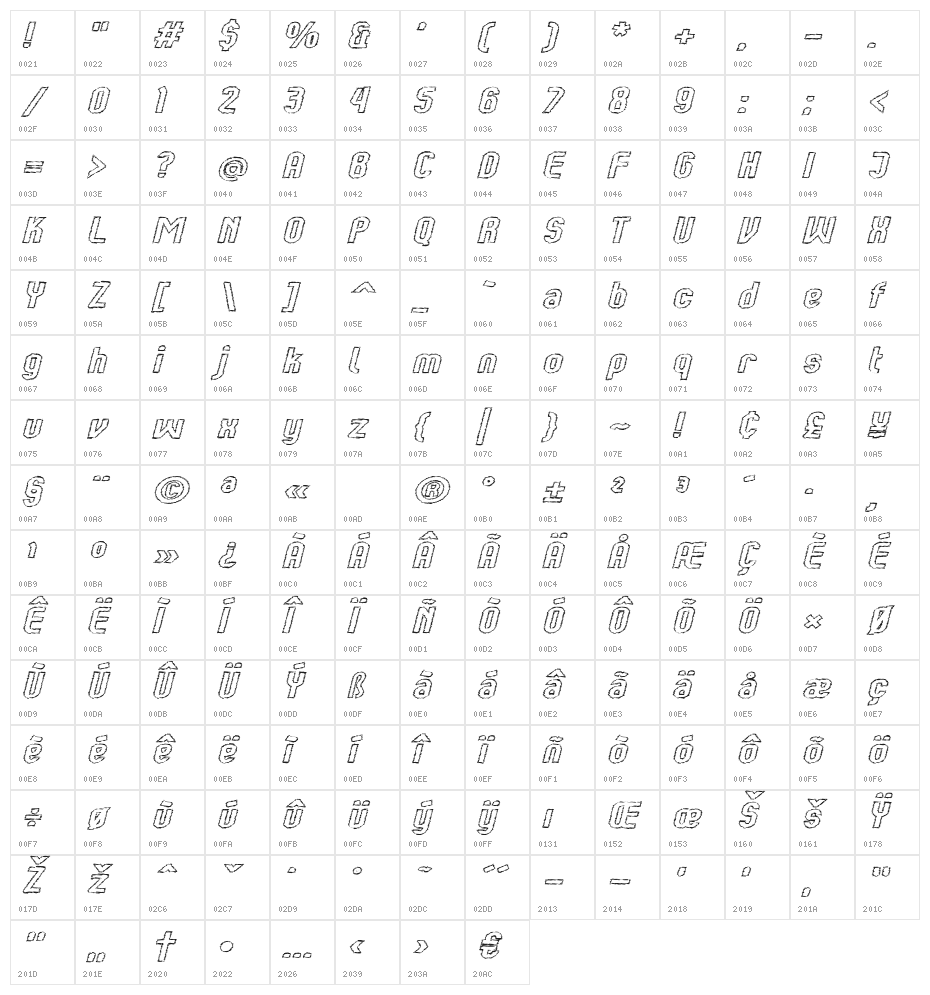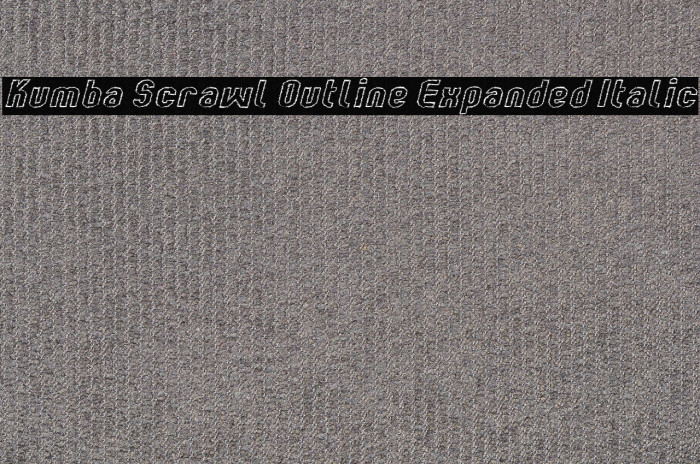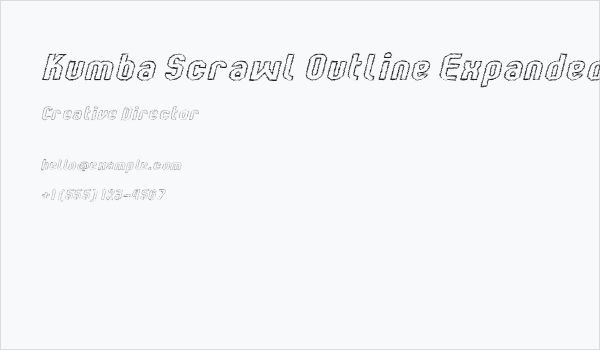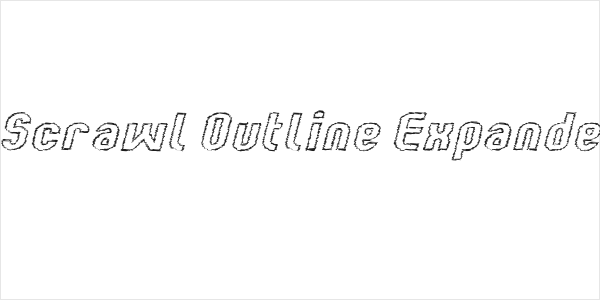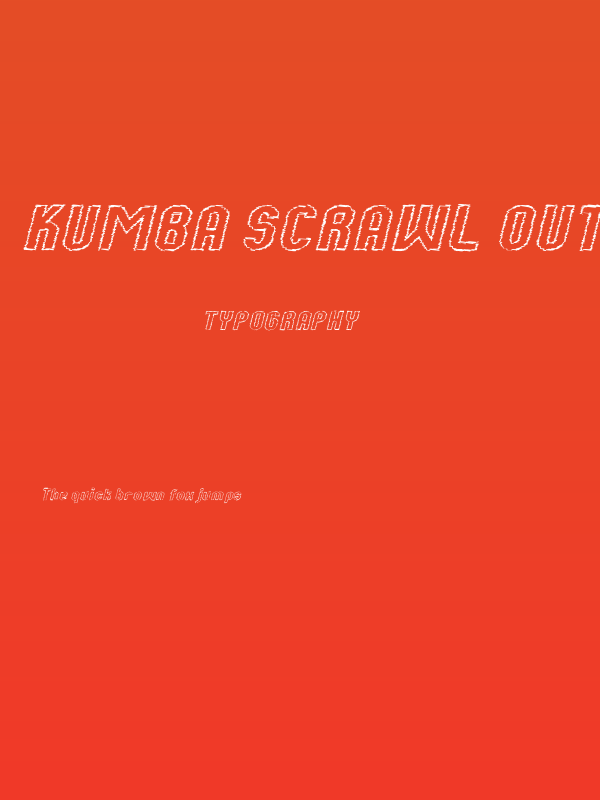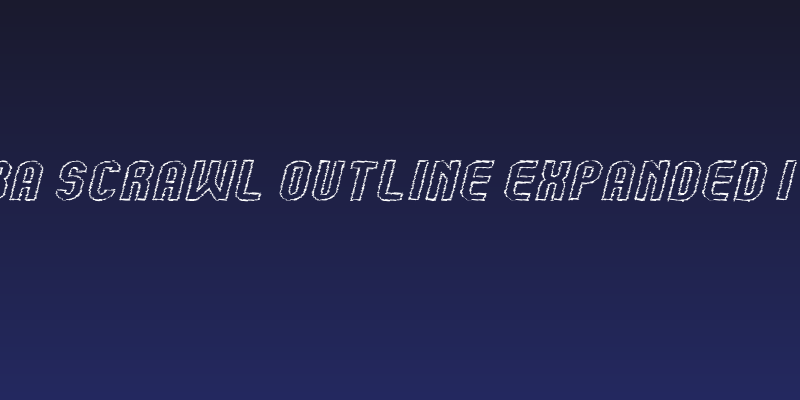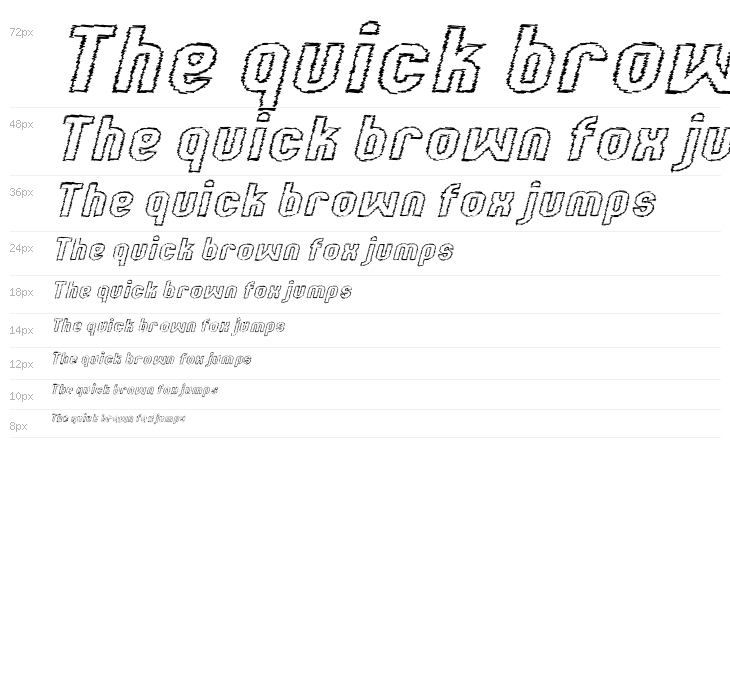
Kumba Scrawl Outline Expanded Italic Font
Kumba Scrawl Outline Expanded Italic Description
This font features a playful and dynamic outline style, characterized by its expanded and italicized form. The letters are bold and have a hand-drawn, scrawled appearance, giving them a casual and informal look. The outlines are consistent in thickness, creating a uniform yet lively aesthetic. The uppercase and lowercase letters maintain a cohesive style, with rounded edges and a slightly irregular shape that enhances the handwritten feel. The numerals and special characters follow the same design principles, ensuring a harmonious overall appearance. This font's unique style makes it stand out, perfect for projects that require a touch of creativity and fun.
Proposed ProjectsIdeal for children's book covers, playful branding, creative posters, and informal invitations.